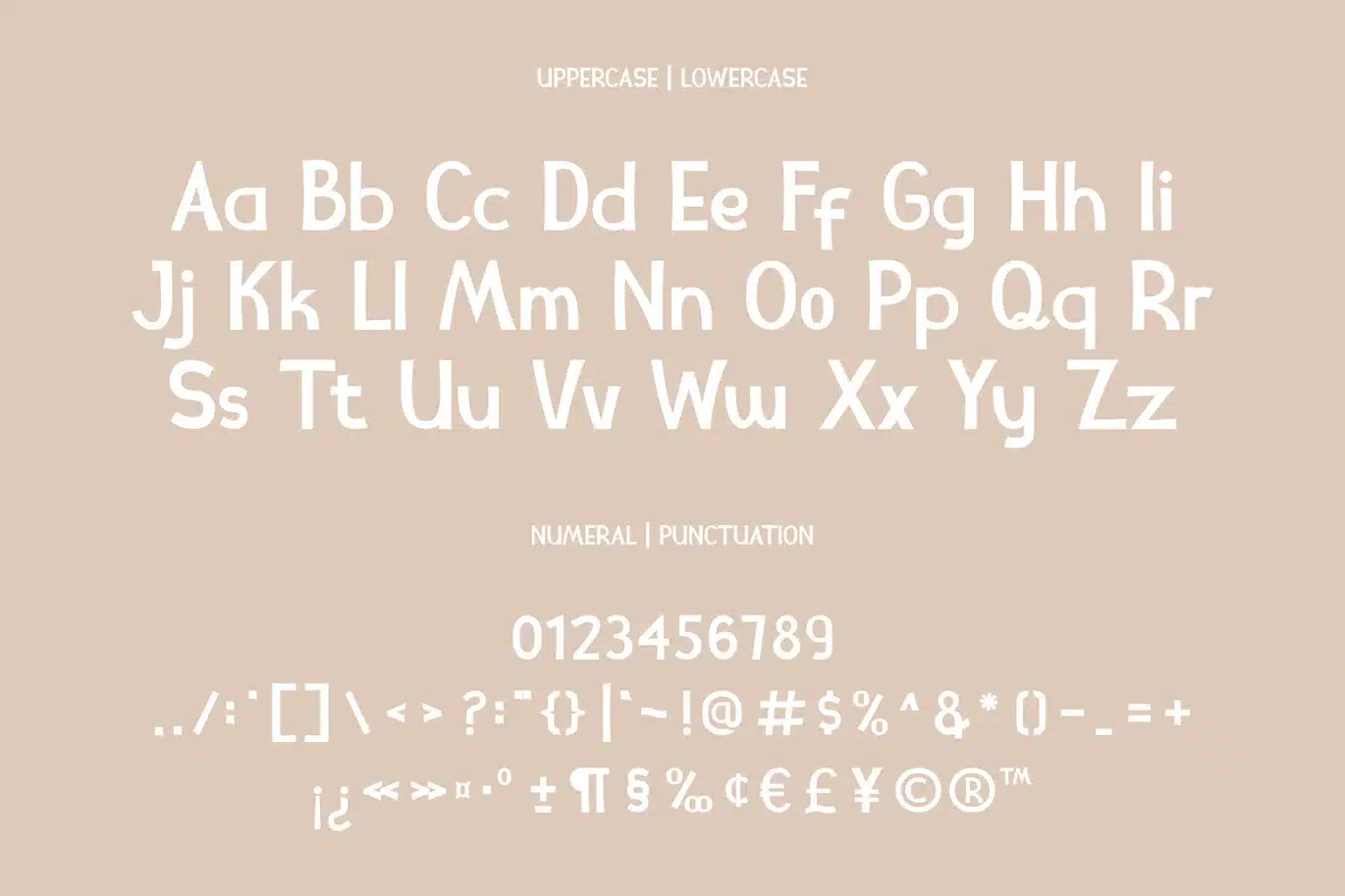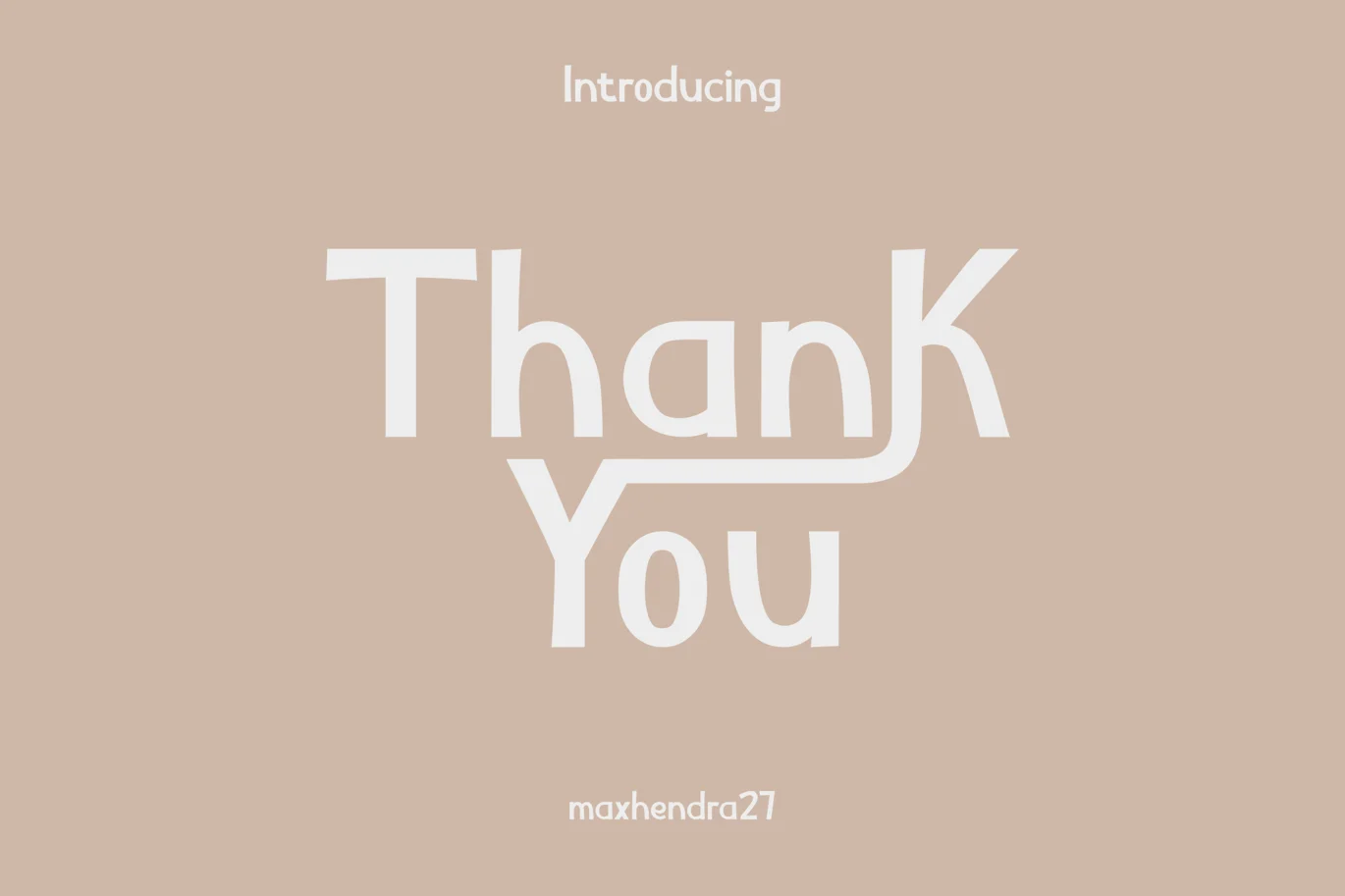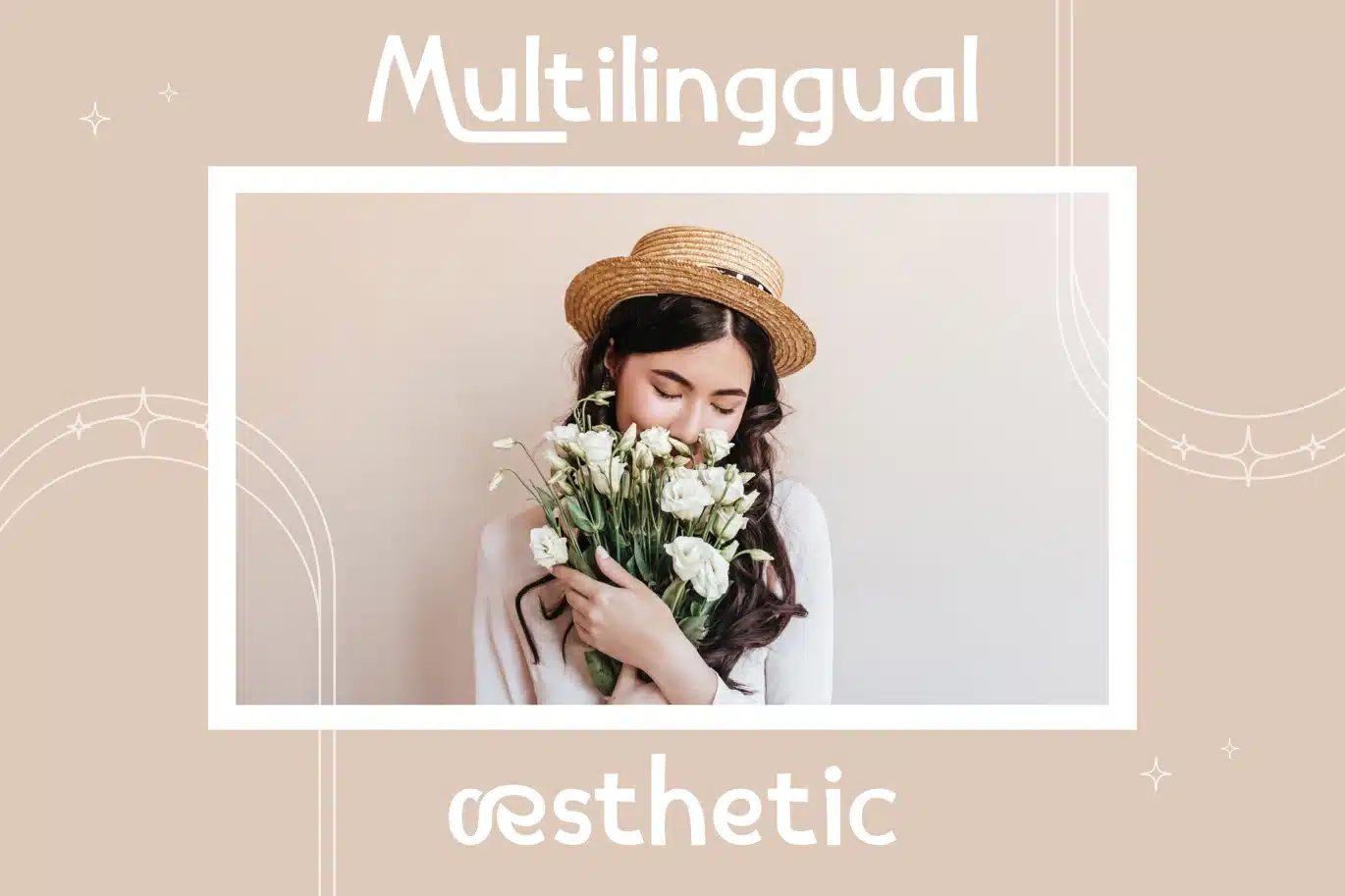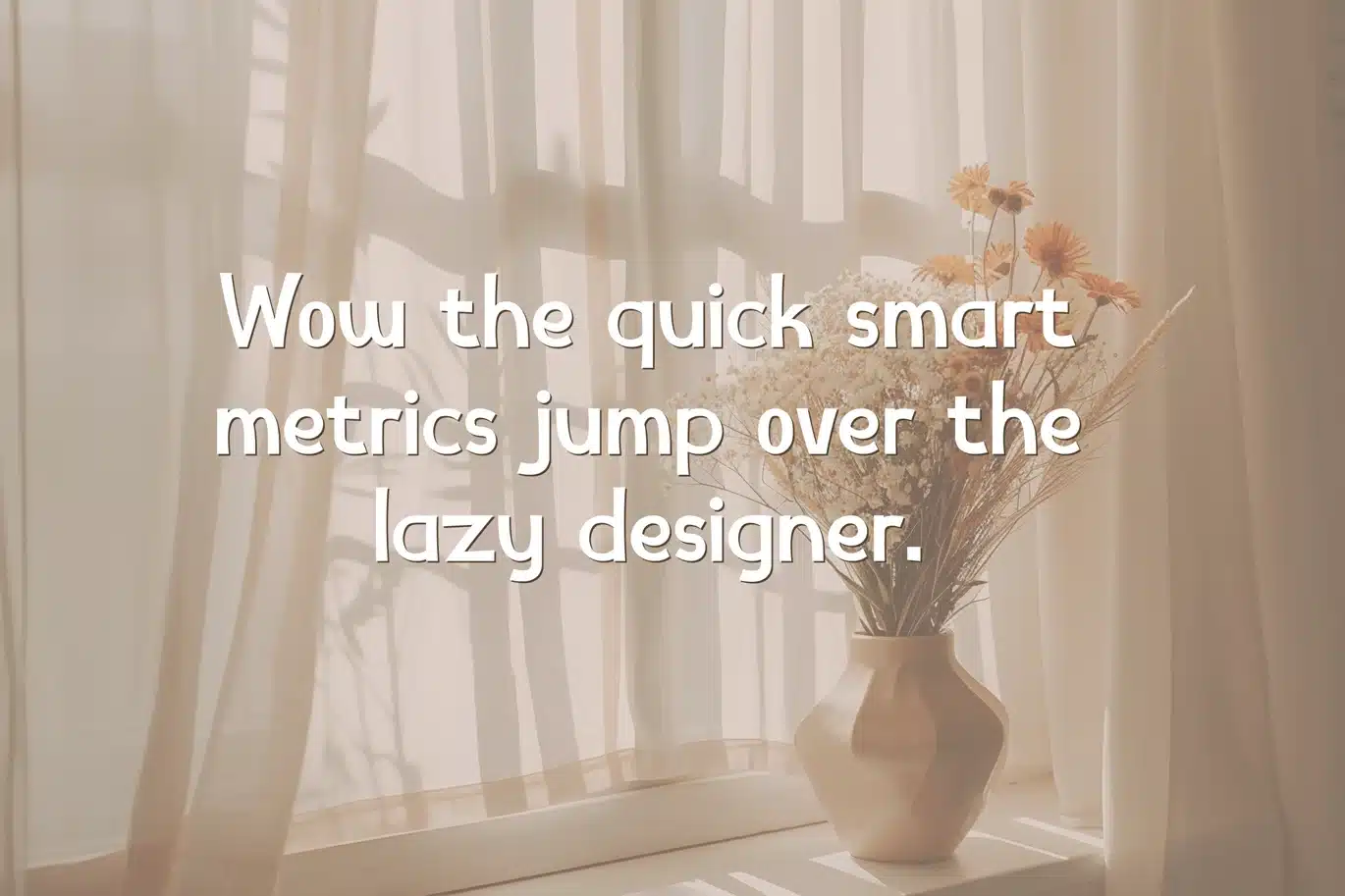
Enkano – Modern Sans Display Font
Enkano is a super thick typeface with more traditional letter shapes, making it perfect for creating (or recreating) the concise look of film poster production credits.
- Uppercase Characters
- Lowercase Characters
- Ligatures Characters
- Alternate Characters
- Punctuation & Numbers